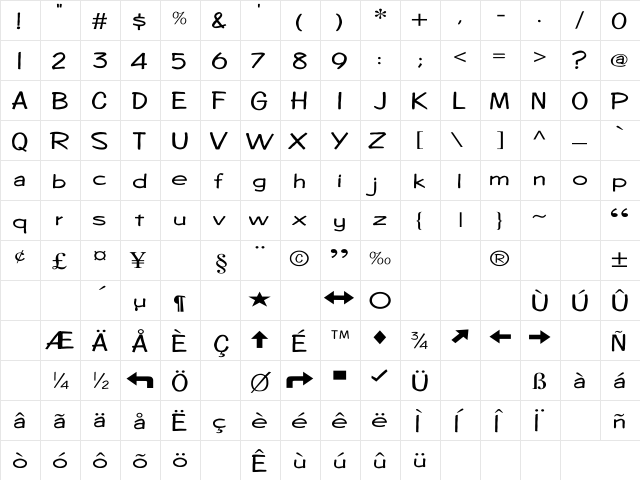
Diego1 Wd Regular Font Preview
Diego1 Wd Regular
Diego1 Wd Regular Font Details
Design Context for Diego1 Wd Typeface
Diego1 Wd takes a measured approach to typography — its balanced proportions and neutral character make it a reliable workhorse for both digital and print work.